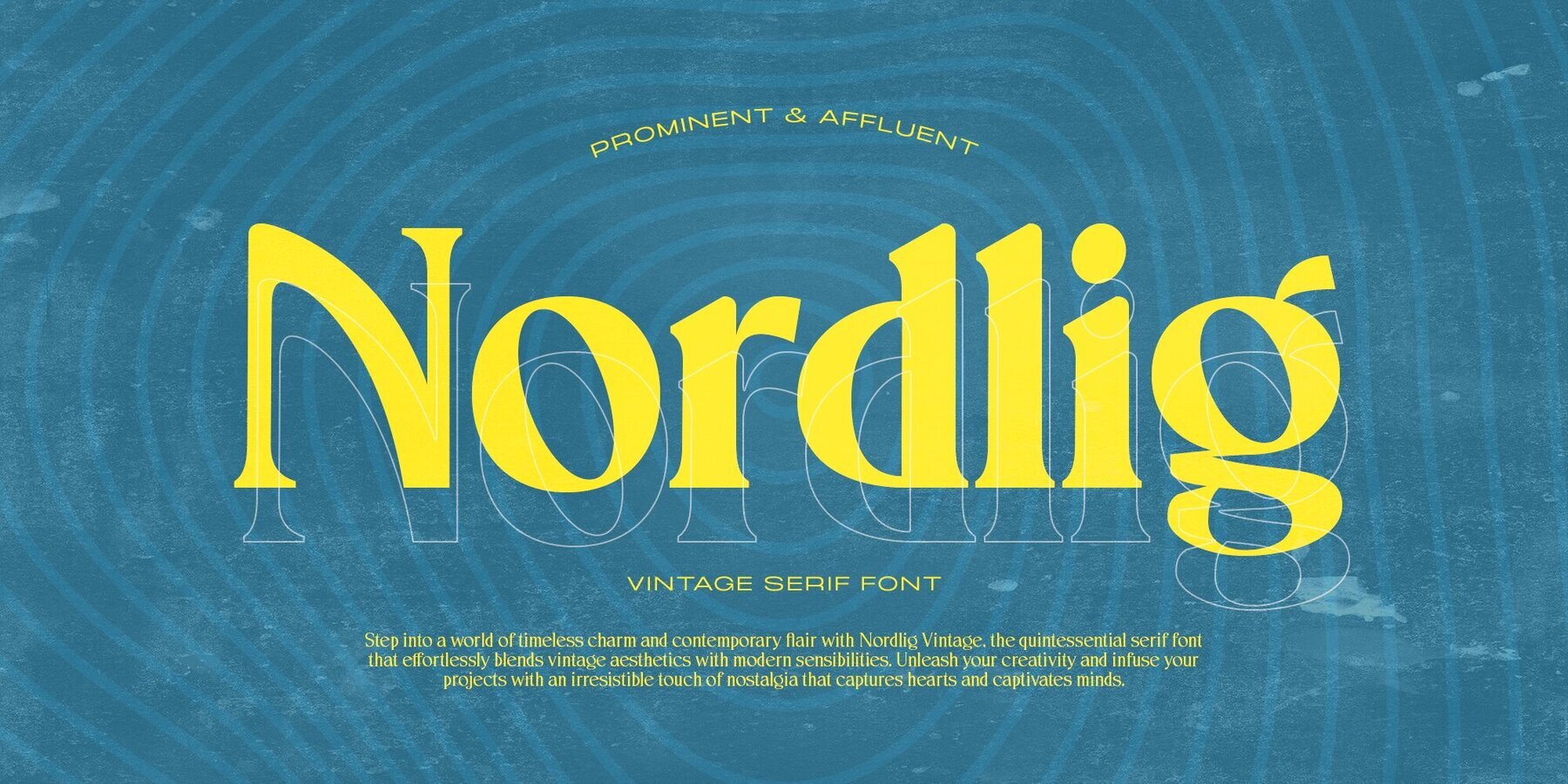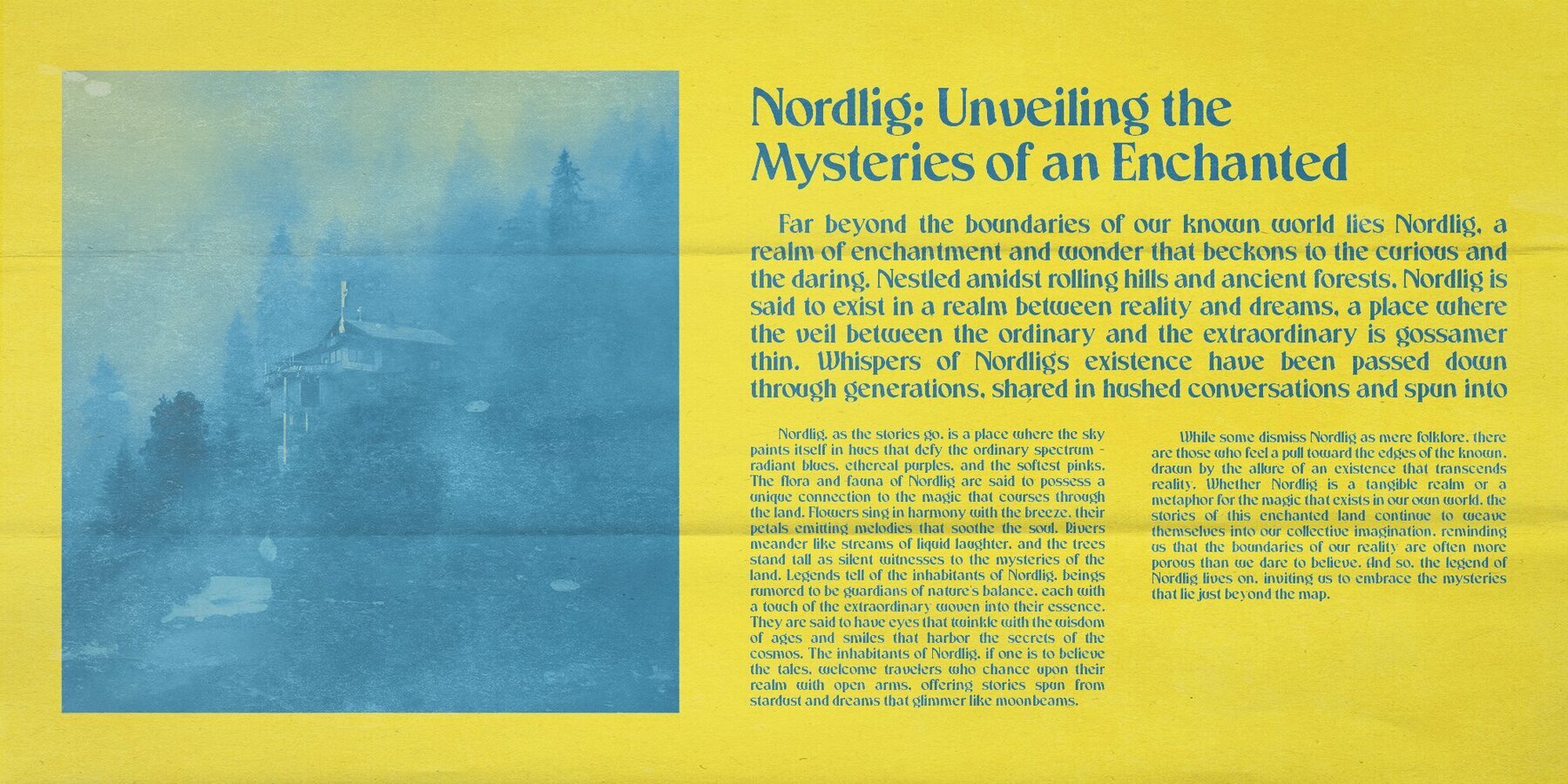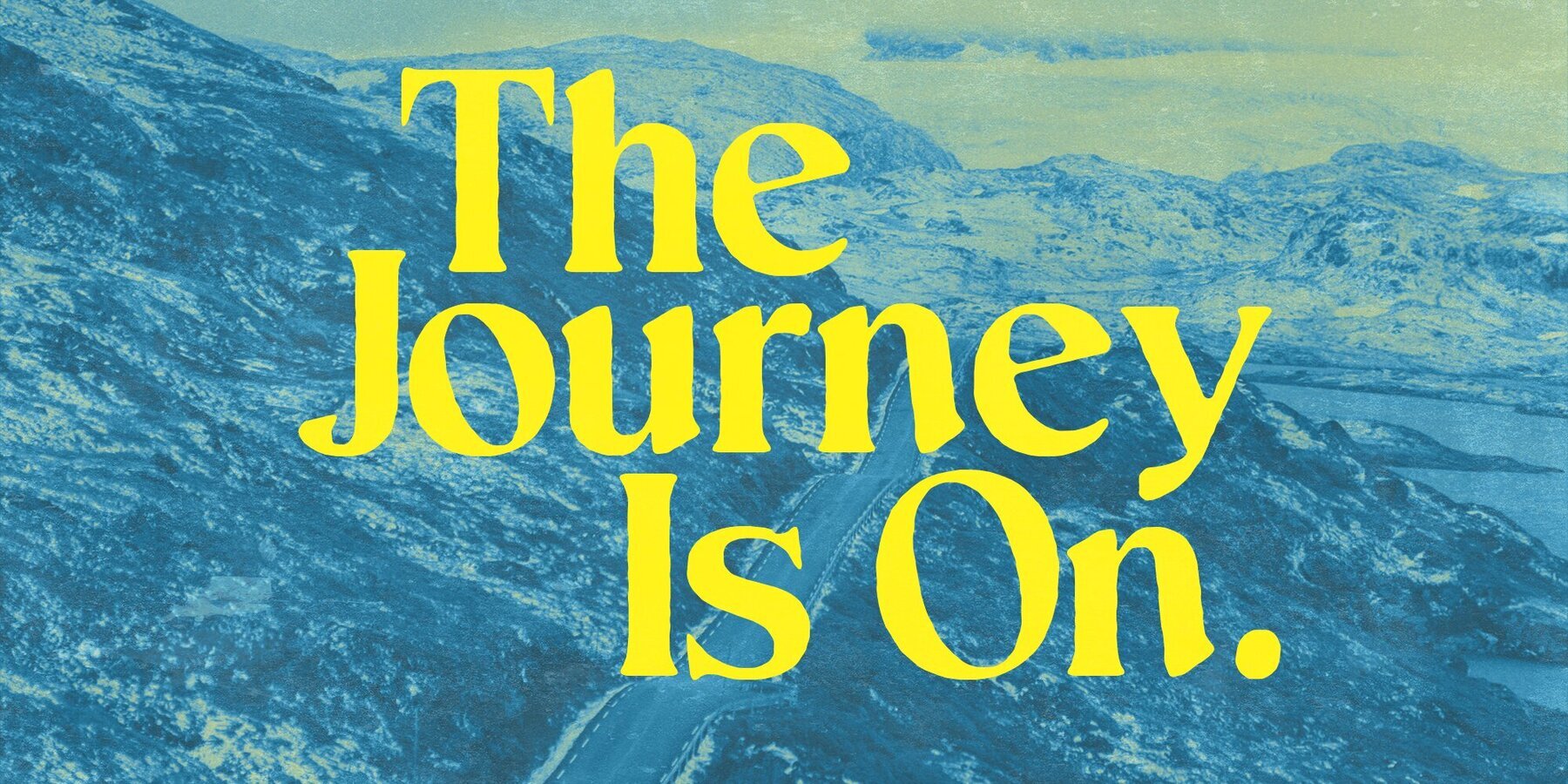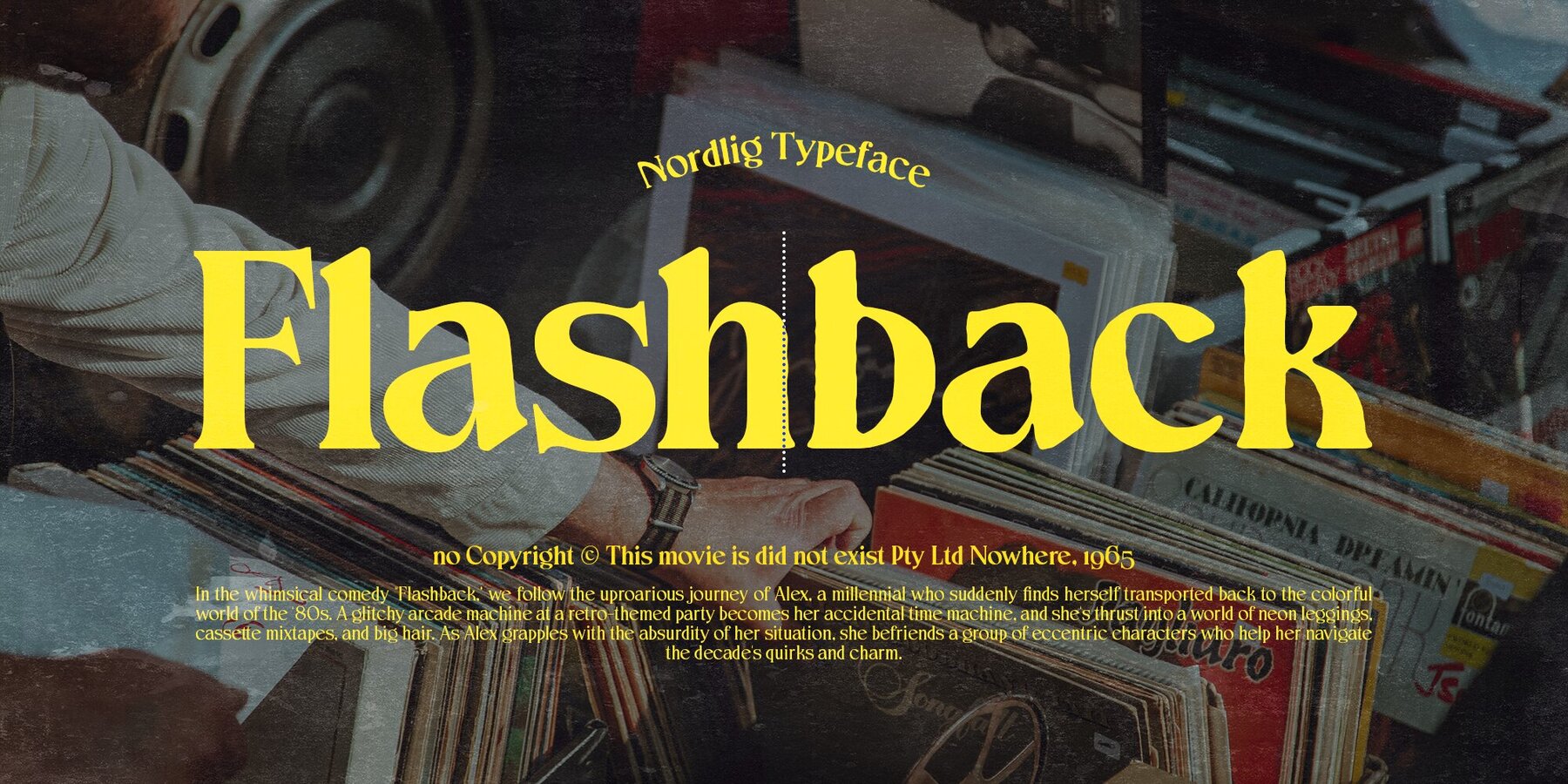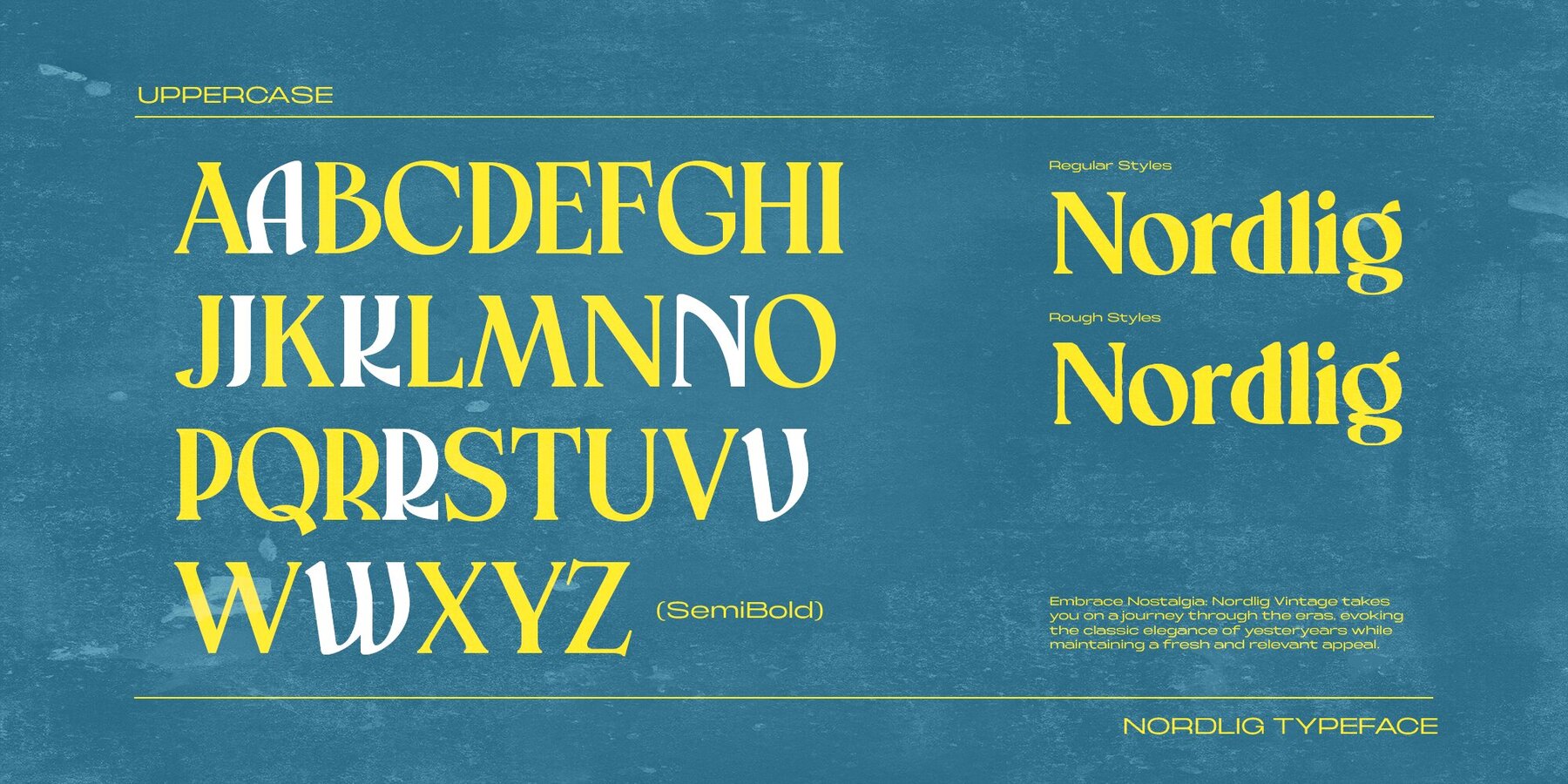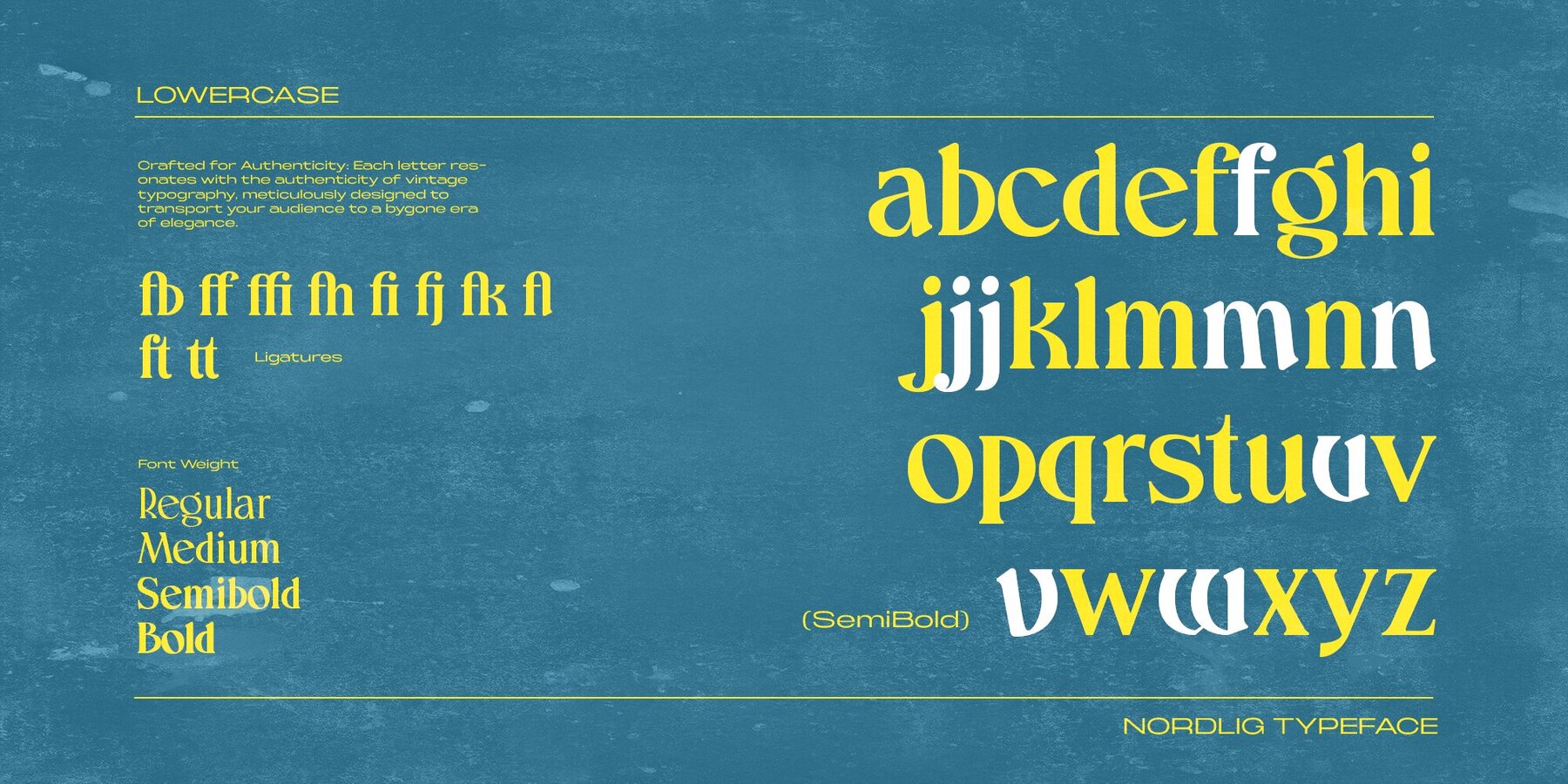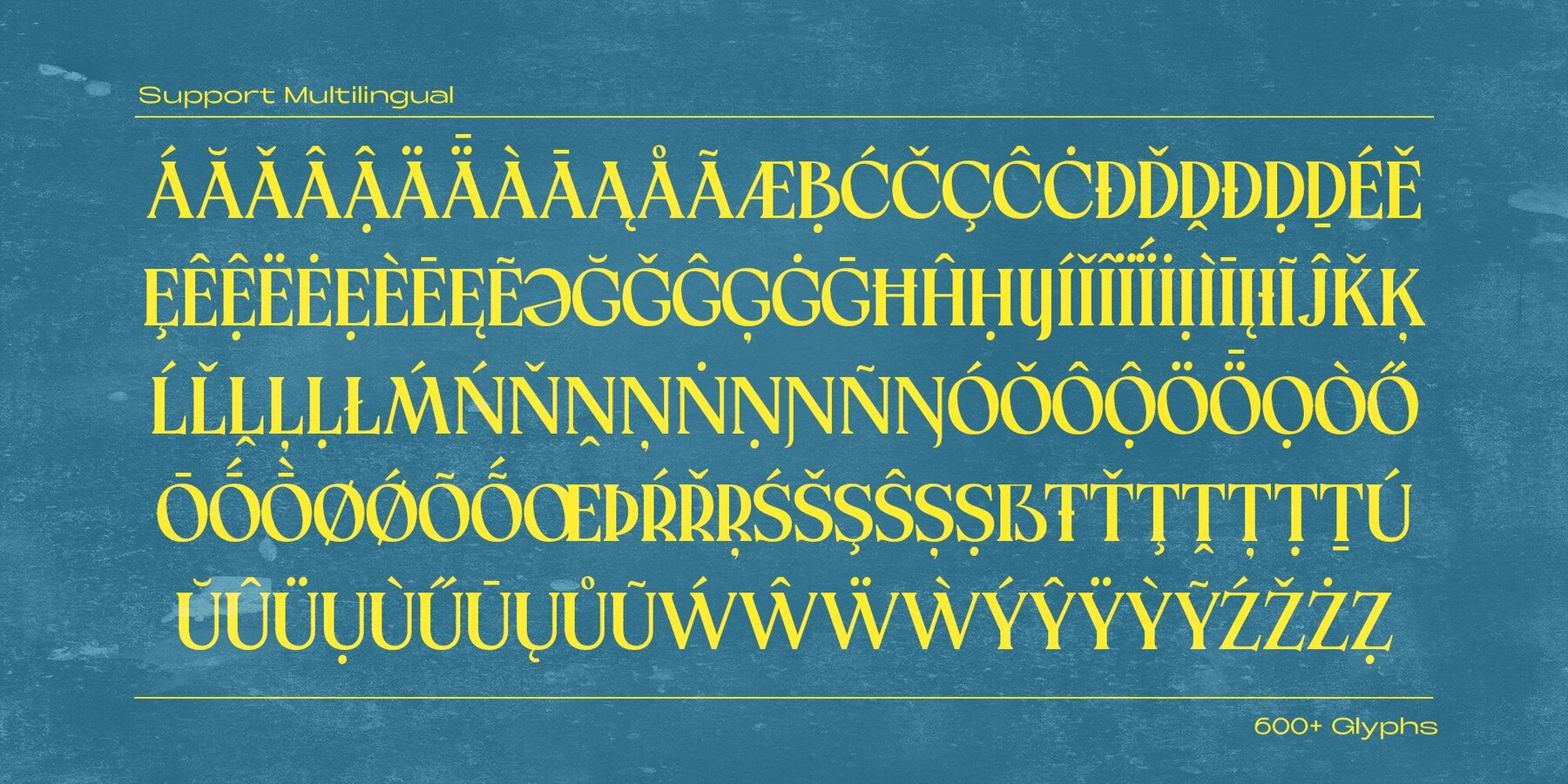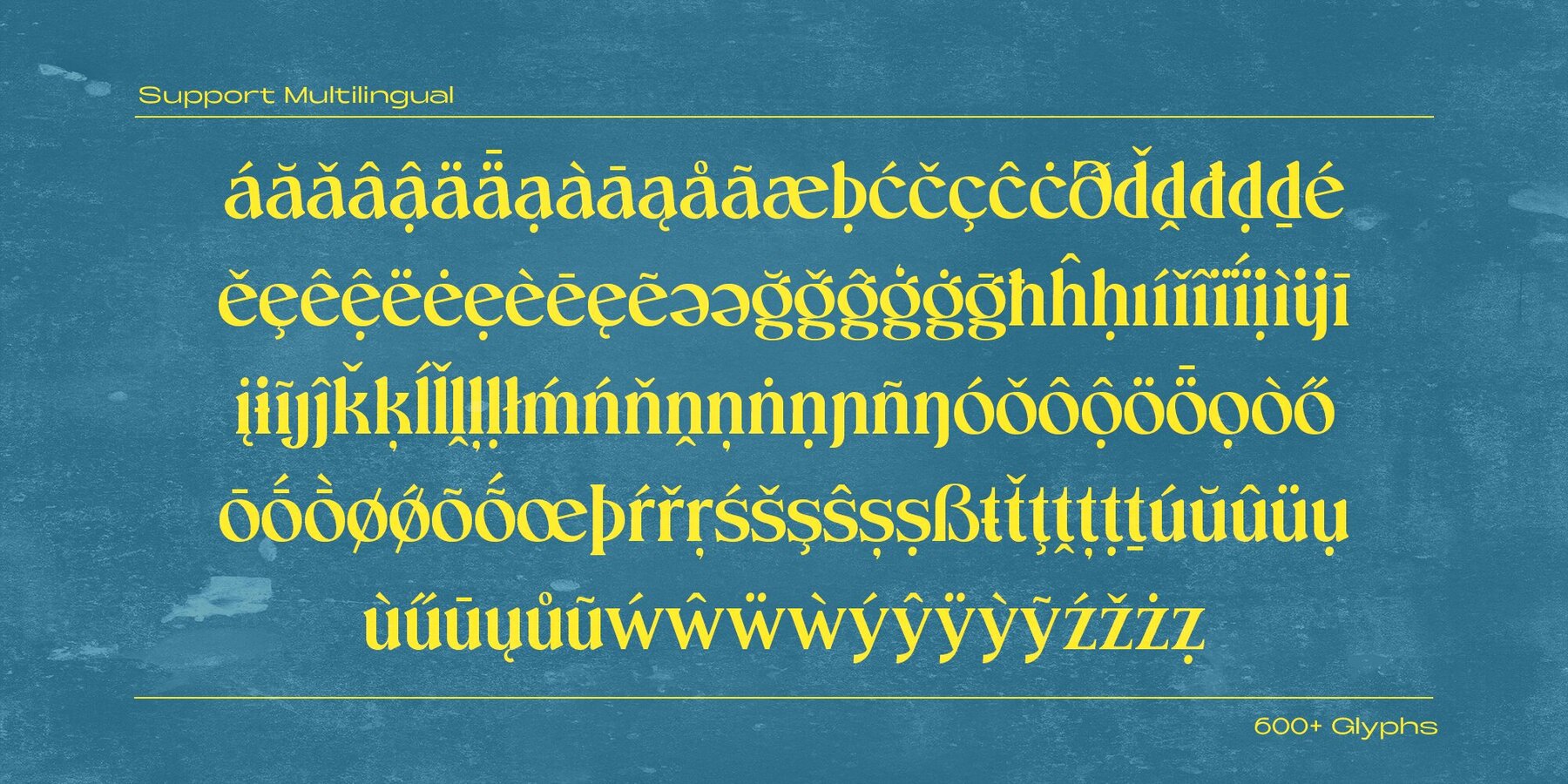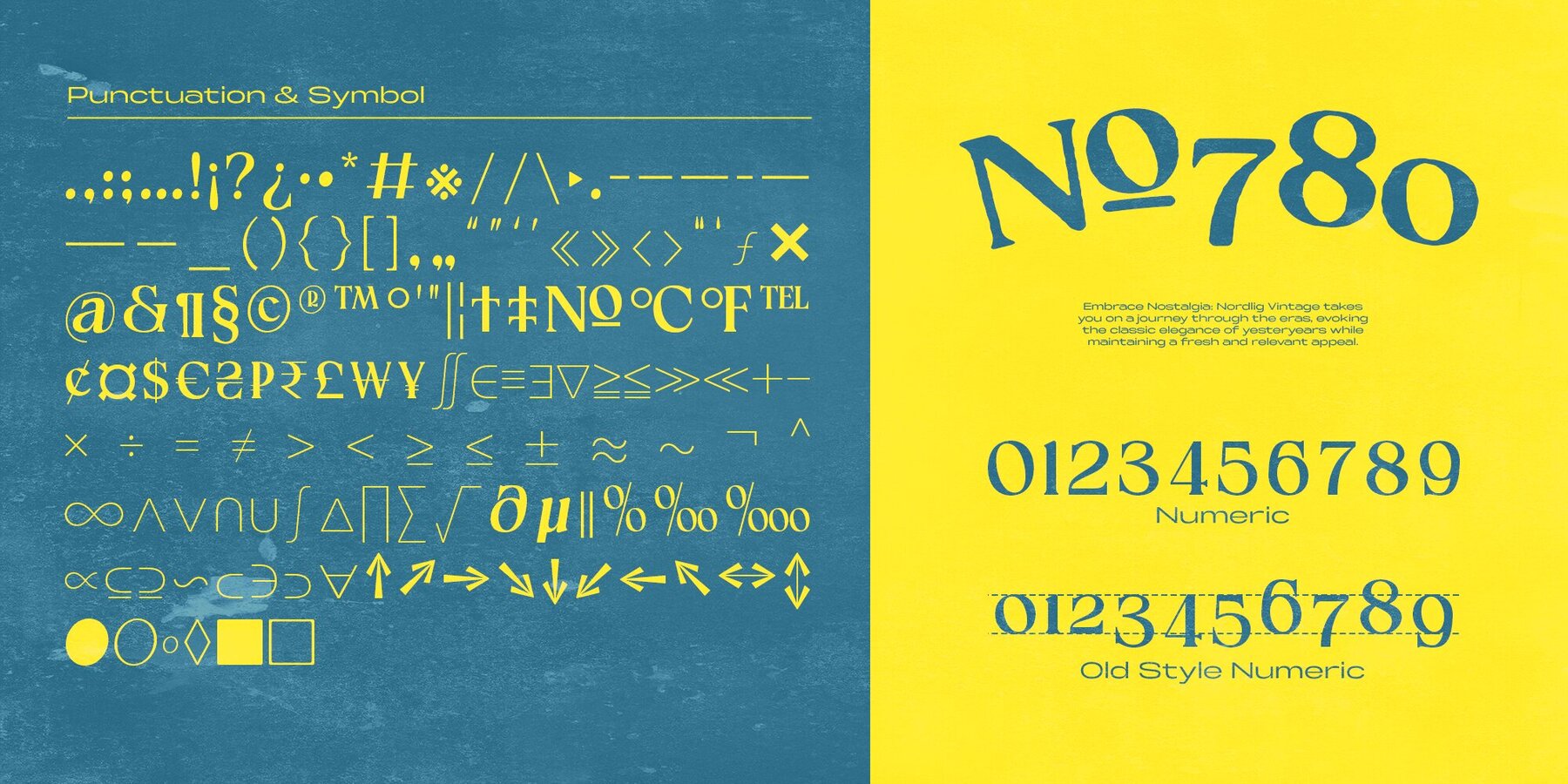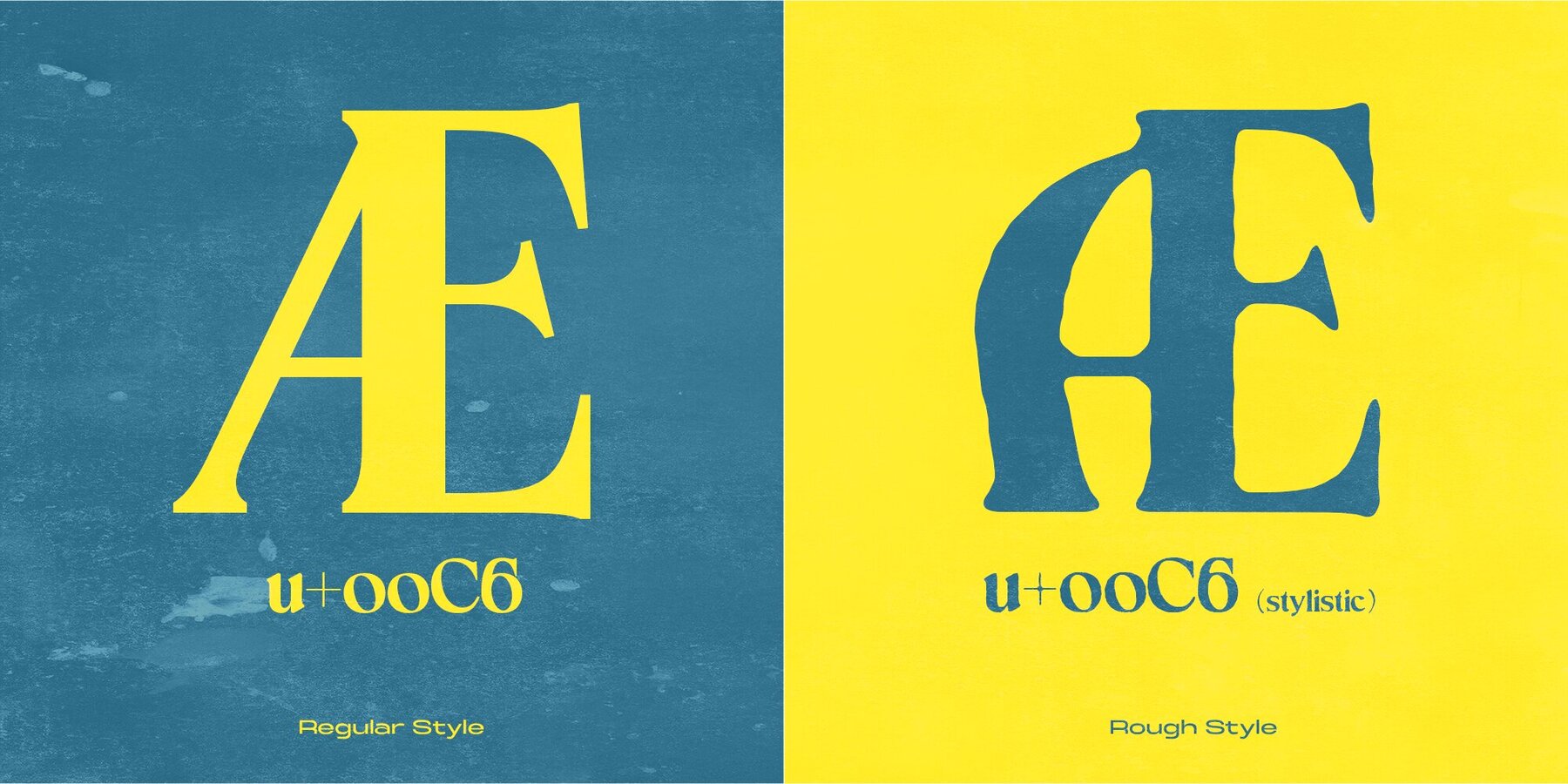
Nordlig Font
Nordlig transports you to a bygone era, infusing your projects with the unmistakable allure of 70s design. It’s a font that whispers of nostalgia while maintaining a fresh, relevant appeal. Nordlig seamlessly marries the timeless charm of the 70s with the demands of modern design. It’s more than a font; it’s a conduit through which the past and present converge, enabling you to create designs that resonate across time. Elevate your designs with Nordlig, a serif font that not only pays homage to a rich design legacy but also sets a new standard for modern elegance. Embrace the spirit of the 70s with a font that transcends eras, and let your creativity soar. Experience Nordlig today and witness the magic of vintage typography reimagined for the contemporary creator.